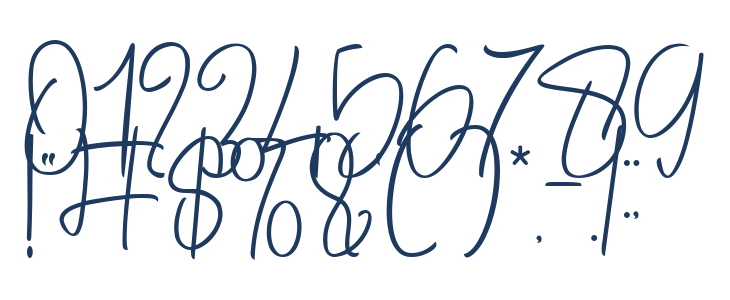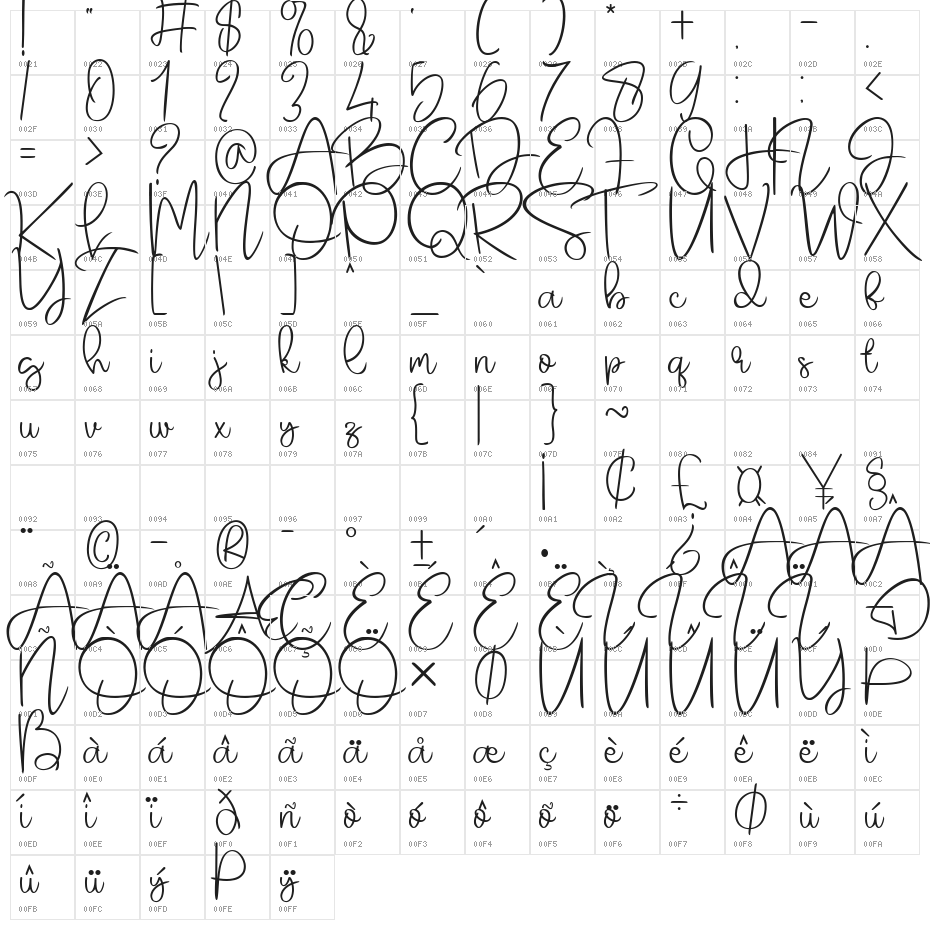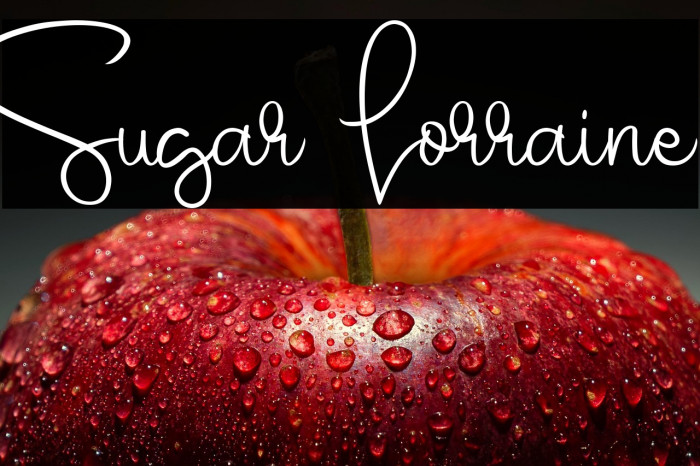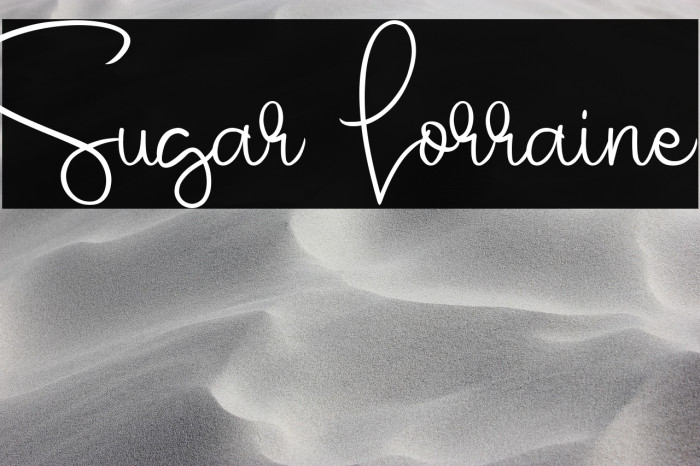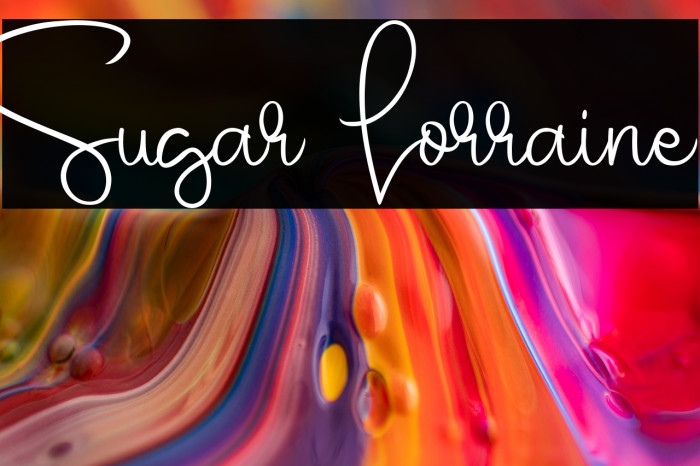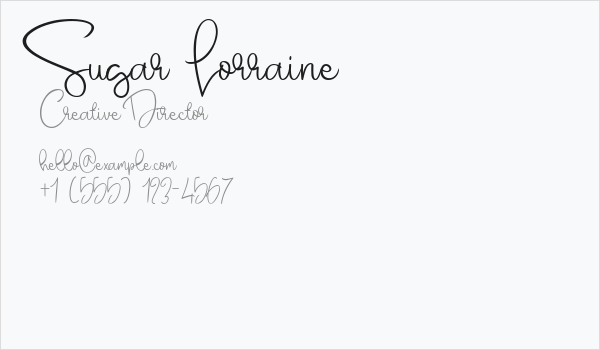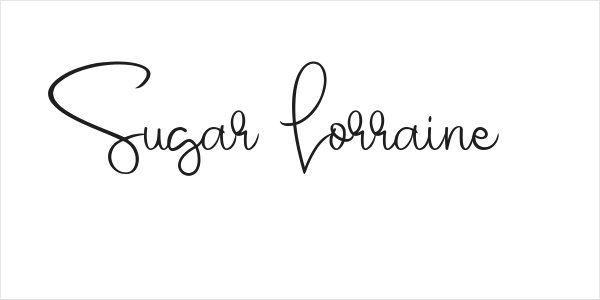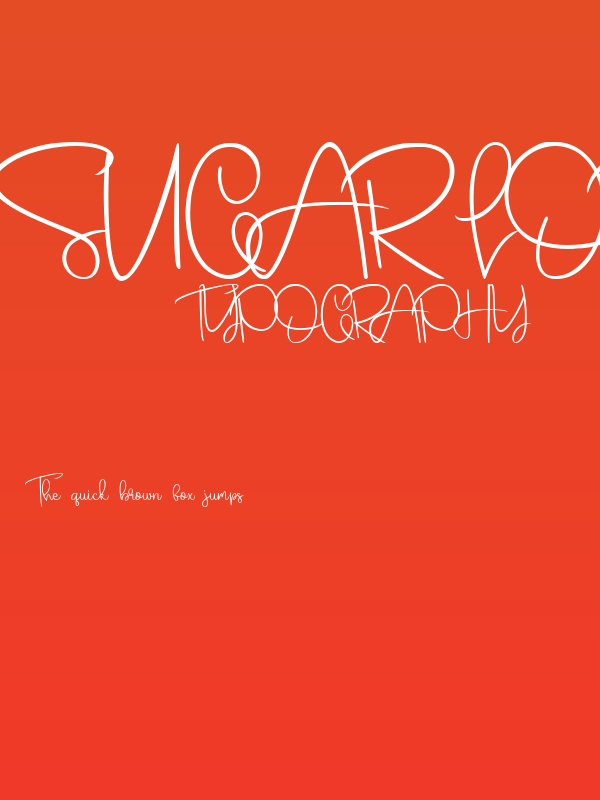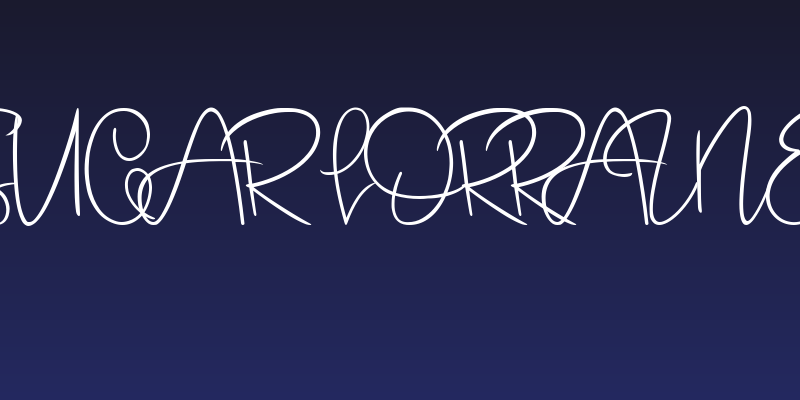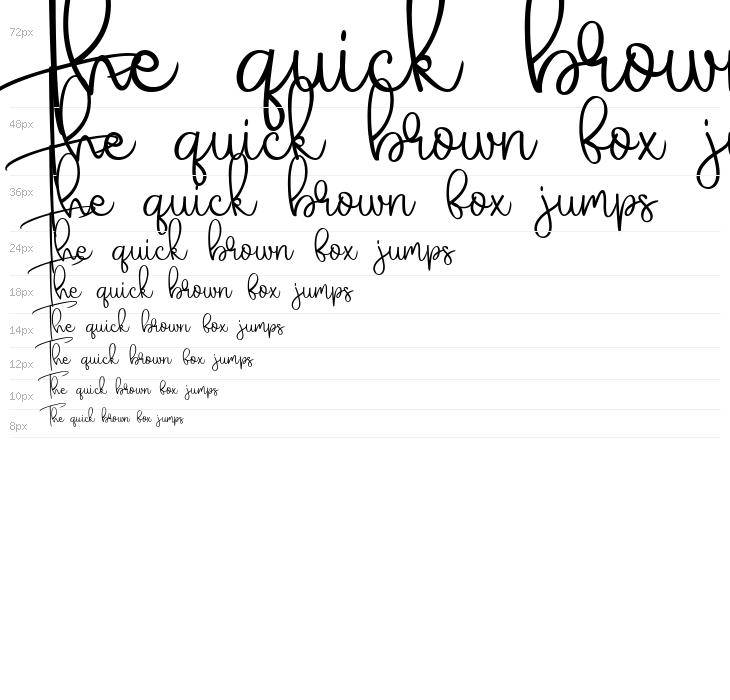
Sugar Lorraine Font
Sugar Lorraine Description
This font features a playful and whimsical handwritten style, characterized by its fluid and continuous strokes. The uppercase letters exhibit a unique intertwining design, creating a sense of movement and energy. The lowercase letters maintain a consistent flow, with rounded edges and smooth curves that enhance its casual and friendly appearance. Numbers and special characters follow the same lively aesthetic, making them visually cohesive with the alphabet. The overall design is both artistic and approachable, ideal for projects that require a personal touch.